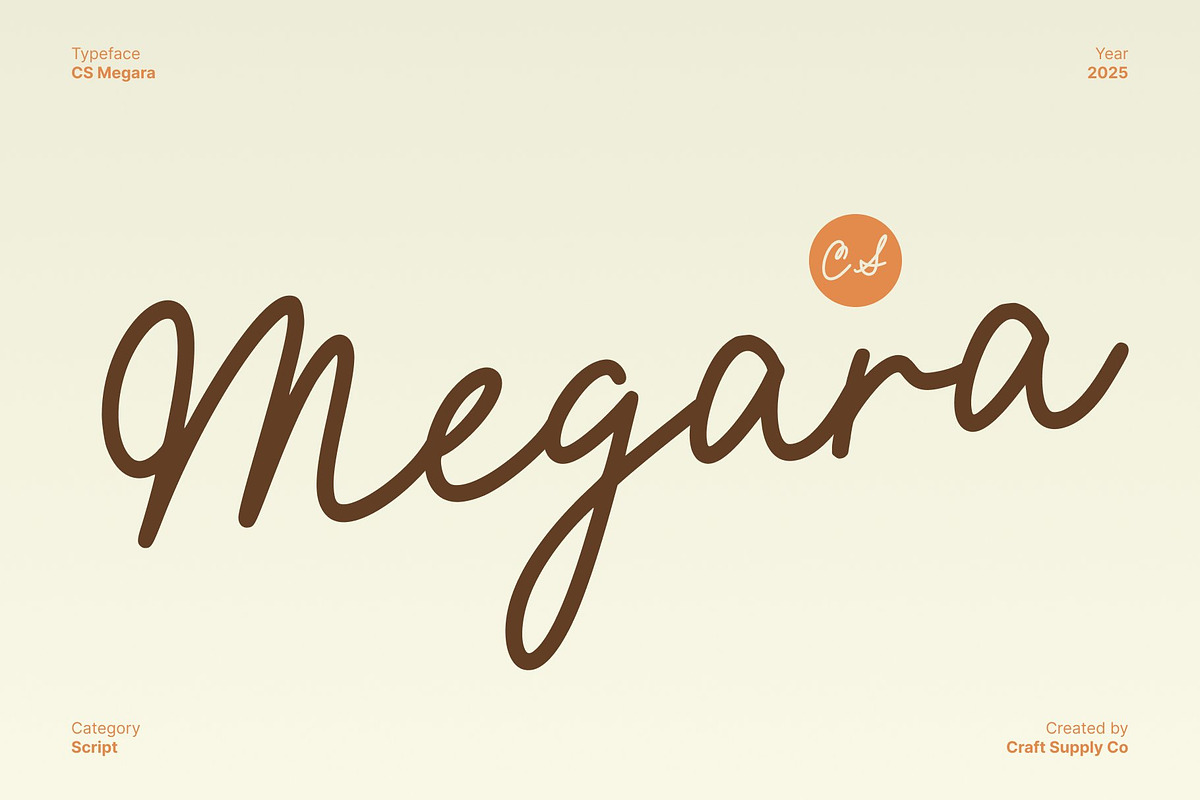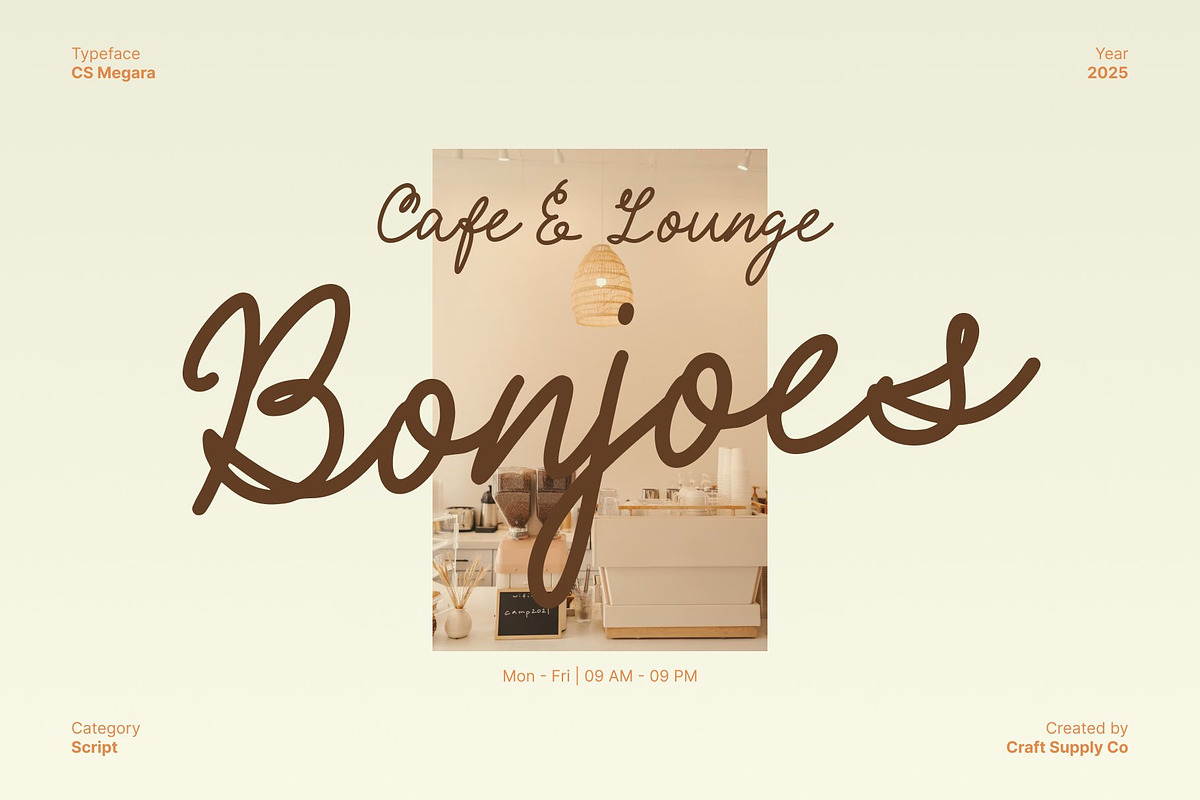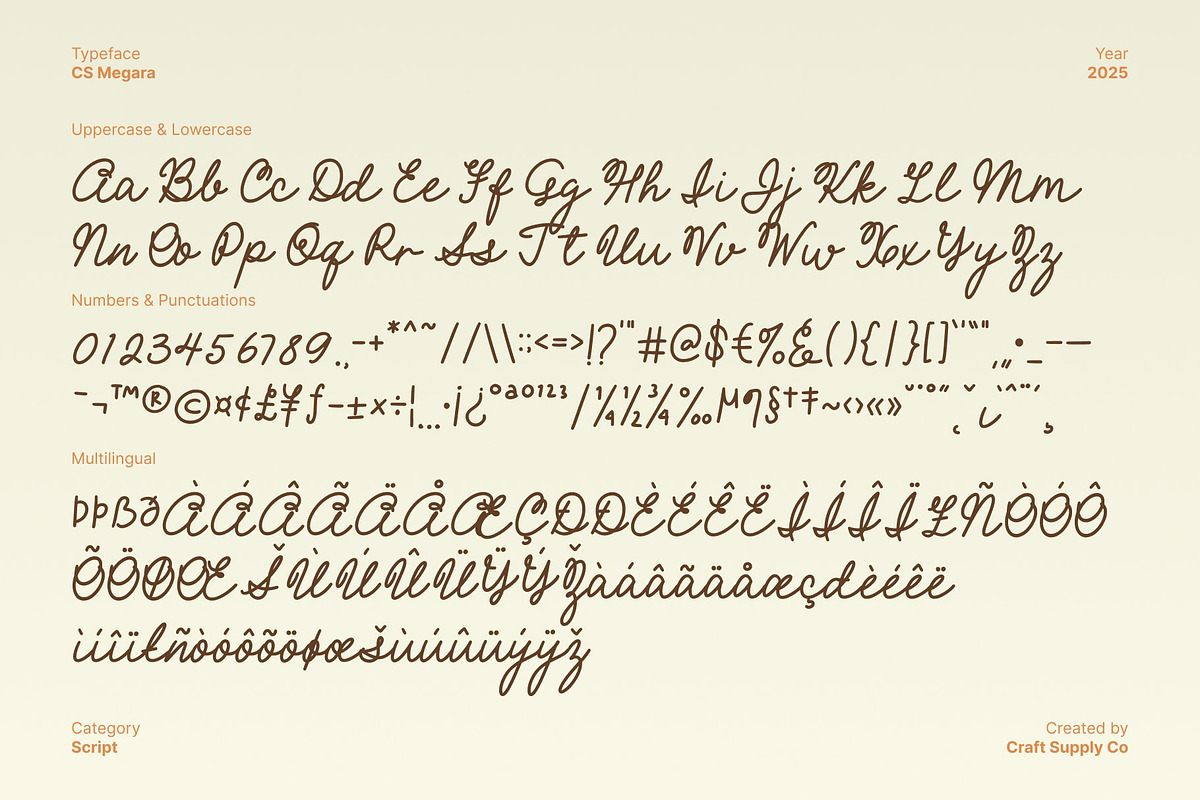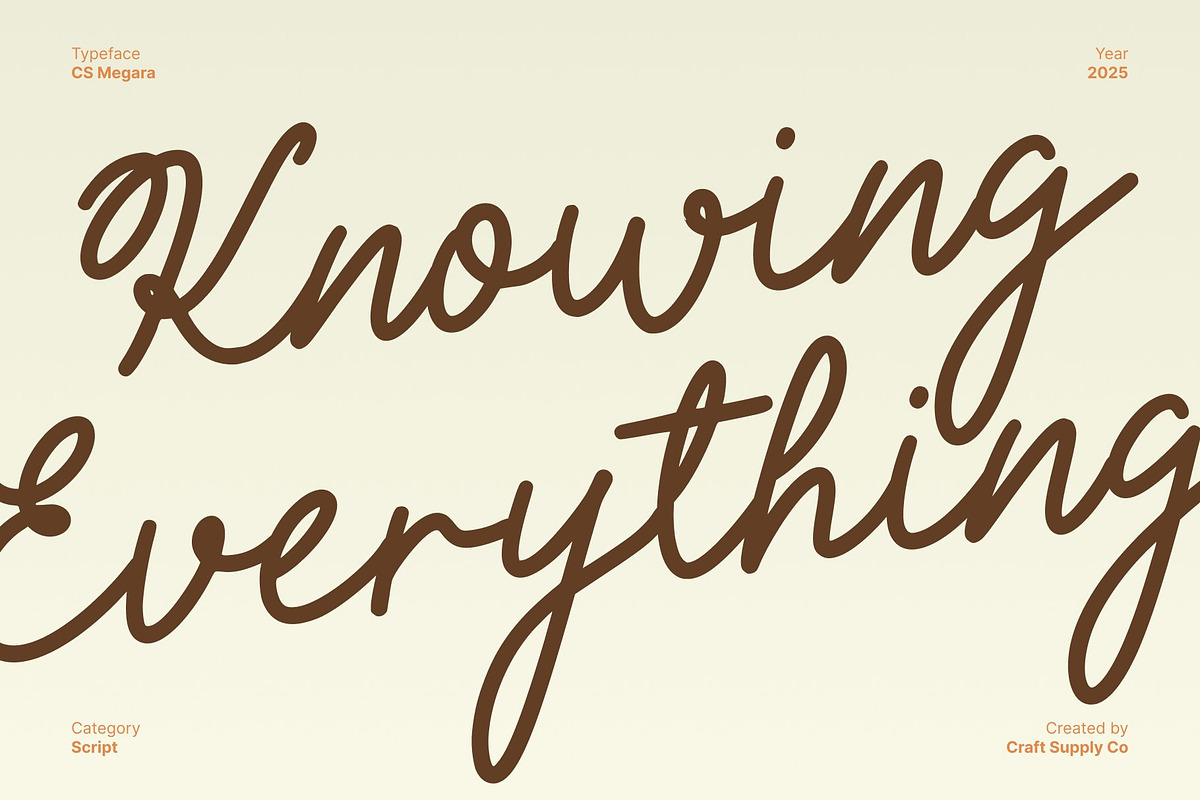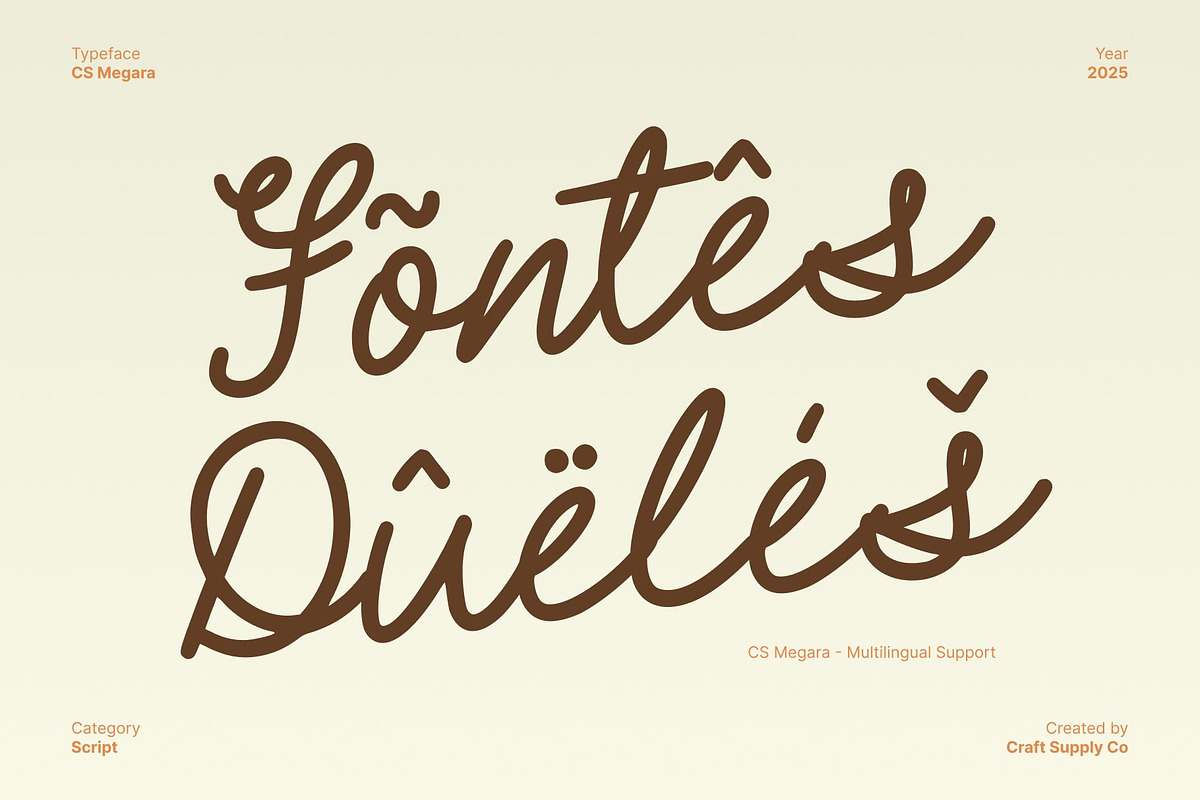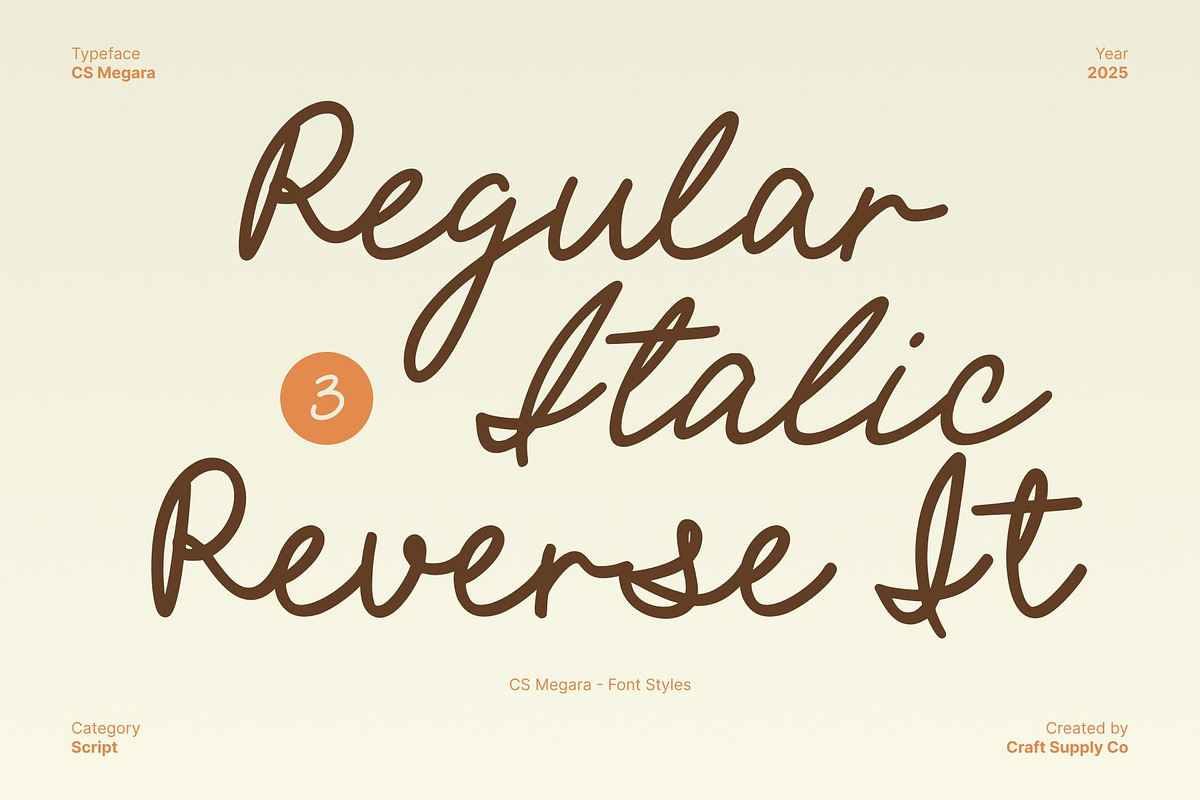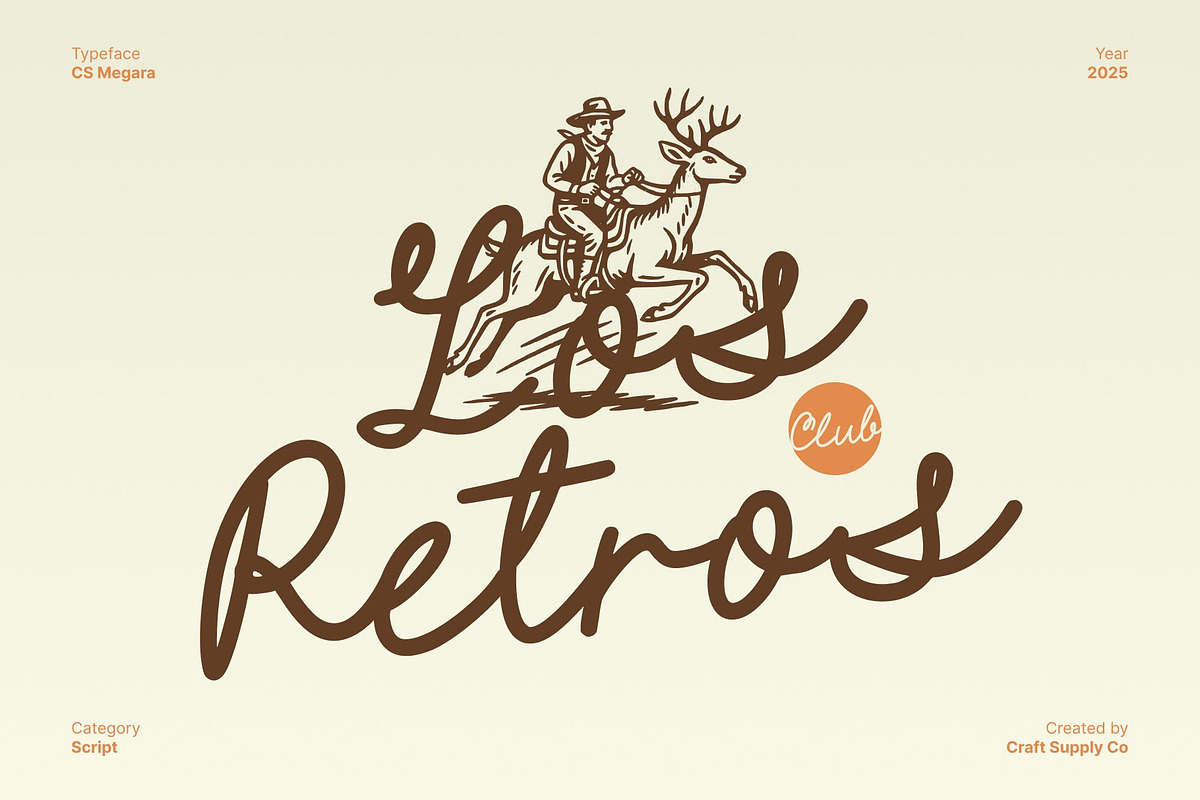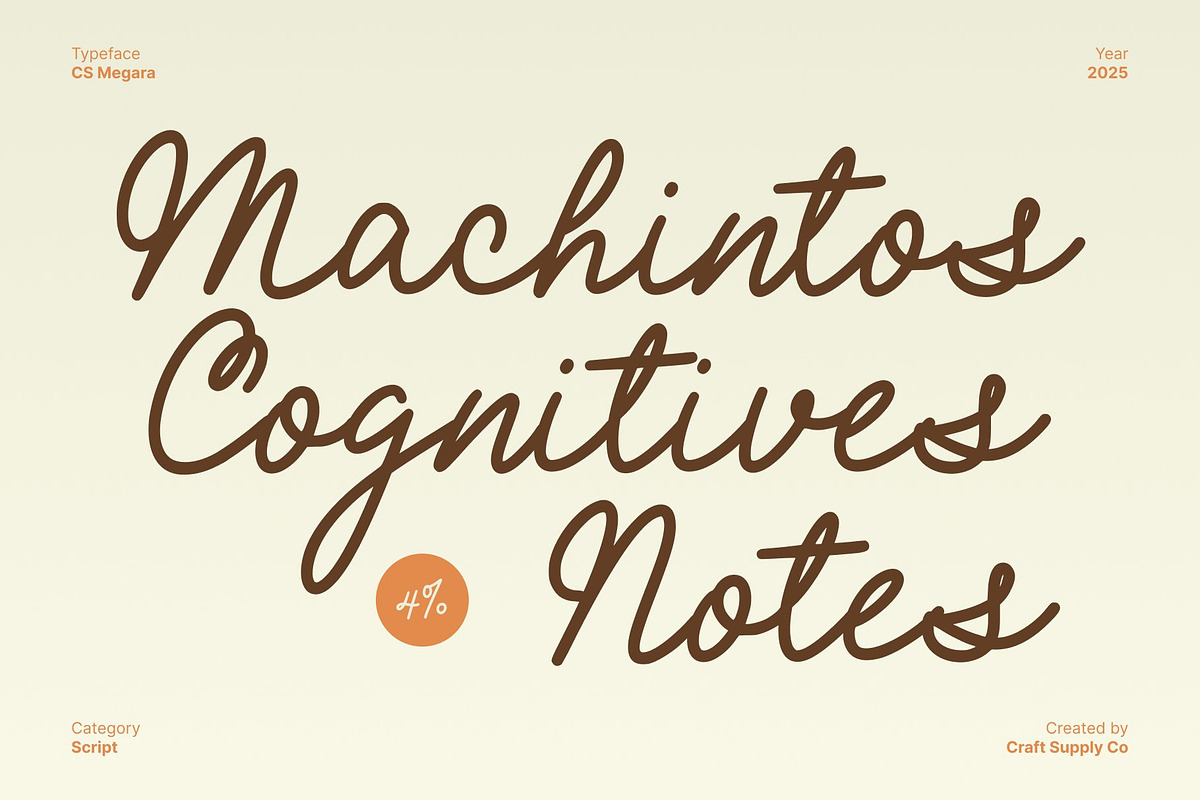
CS Megara – Handwritten Script Font
CS Megara – Beautiful Script with Modern Refinement
Branding Script Font with Graceful Flow This is a polished branding script font that combines elegance with modern readability. Its smooth, flowing lines convey sophistication and style, making it perfect for designs that require a refined, high end aesthetic.
Modern Elegance and Readability Designed with clarity and balance in mind, this font ensures every letter is both beautiful and legible. Its monoline script style blends classic charm with modern sensibilities, creating a font that feels luxurious yet approachable.
Refined and Polished Design The graceful curves and seamless connections of this font bring harmony and rhythm to any composition. Its versatile forms make it suitable for a variety of design contexts, adding a touch of sophistication to every project.
Perfect for Luxury and Creative Branding Ideal for logos, editorials, luxury packaging, invitations, fashion, and branding, this font delivers elegance and professionalism in every stroke. Its combination of beauty, flow, and readability makes it the perfect choice for projects that aim to impress with style and refinement.